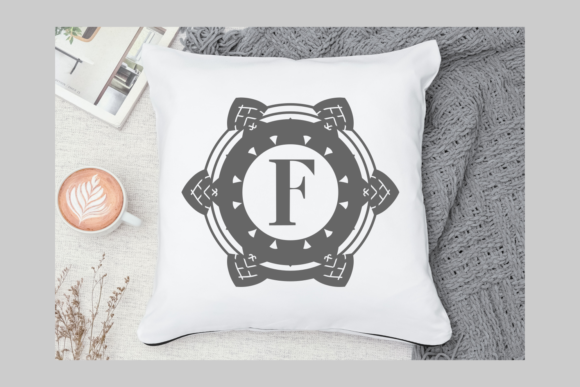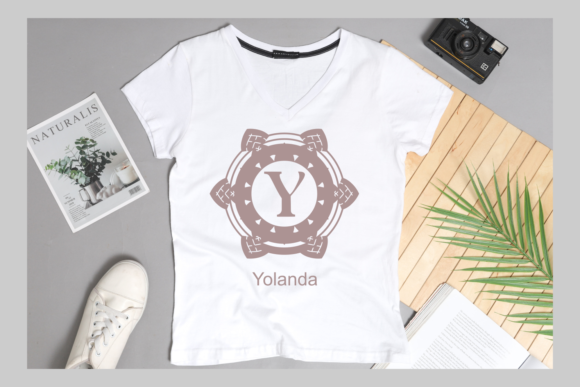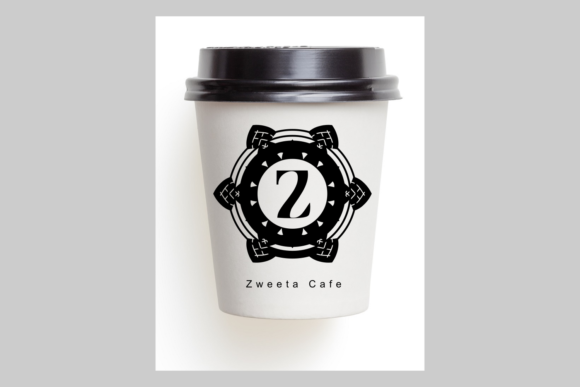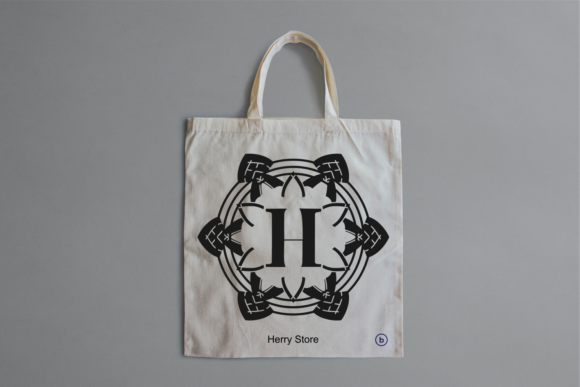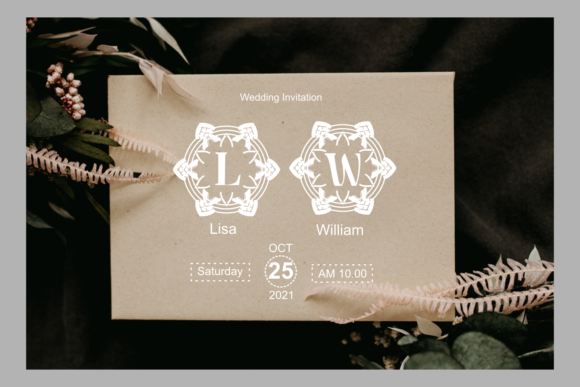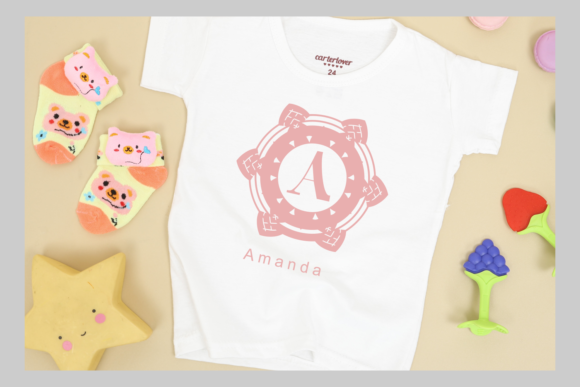
Introduction to Monogram Tsuriken Font
Do you remember that moment when you first started a creative project and were overwhelmed by the endless options for typography? The search for the perfect font can be a daunting task, but what if you stumbled upon one that takes your breath away? For designers, finding a high-quality font that elevates their work to the next level is a game-changer. This is exactly what happens when you discover the Monogram Tsuriken Font.
This stunning font is a treasure trove for designers, offering a unique blend of elegance and sophistication. With its intricate details and beautiful design, it’s perfect for adding a touch of class to love letters, wedding invitations, or any other design project that requires a high level of refinement. The Monogram Tsuriken Font is available for free download with a transparent background, making it an invaluable resource for designers who value high-quality design elements.
Key Features of Monogram Tsuriken Font
- Unique, hand-drawn design style suitable for creative projects requiring a distinctive look.
- High-resolution design, ideal for printing and other high-quality applications.
- Designed with a bold, dynamic feel, making it perfect for use in titles, headings, and other prominent design elements.
- Available in a range of sizes, from small to large, to suit various design needs and applications.
Honest Review: Monogram Tsuriken Font
As a designer, I’m always on the lookout for high-quality design resources that can elevate my creative projects. Recently, I stumbled upon the Monogram Tsuriken Font, and I’m excited to share my honest review with you.
- ✨ Unique and intricate design: The Monogram Tsuriken Font boasts a distinctive and intricate design that’s perfect for adding a touch of elegance to your creative project.
- ✨ High quality: The font is rendered in high resolution, making it ideal for large-scale designs and prints.
- ⚠️ Limited transparency: The font doesn’t have a transparent background, which can make it difficult to use on certain design elements.
- ⚠️ Limited language support: The font only supports a limited range of languages, which can be a drawback for designers who need to work with multiple languages.
Overall, I’d say the Monogram Tsuriken Font is a solid addition to any designer’s toolkit. While it has some limitations, its unique design and high quality make it a valuable resource for creative projects that require a touch of sophistication.
The Monogram Tsuriken Font is suitable for various creative projects, including logos, business cards, and social media graphics. Its high quality and transparent background make it a great design resource for any project requiring a unique and eye-catching font.
Is the Monogram Tsuriken Font suitable for designs with transparent backgrounds?
Yes, the Monogram Tsuriken Font is designed to be used with transparent backgrounds. The font files are provided in a format that allows for seamless integration with designs that require a transparent background.